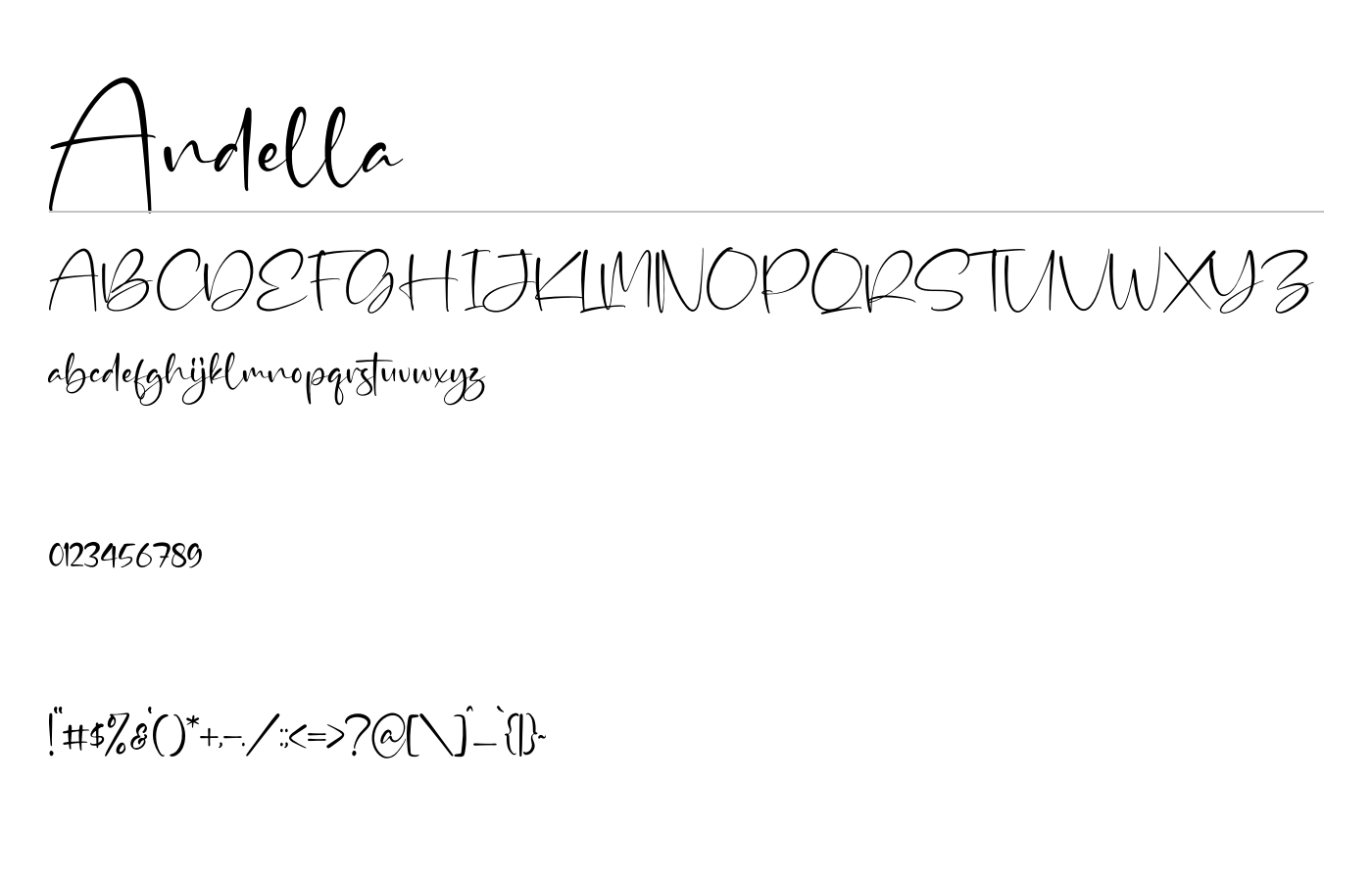
Andella is an elegant, slender script font that features delicate, flowing letterforms with a graceful, hand-drawn quality. Its light weight and smooth, connected strokes give it a refined and sophisticated personality, making it perfect for upscale branding, wedding invitations, and stylish editorial designs where a touch of elegance and warmth is desired. This font works best in larger sizes such as headlines or logos, where its fine details and fluidity can truly shine.
Andella Font
About Andella Font
| Font family | Andella Font |
| Designer | Fajriadi_Pholetter |